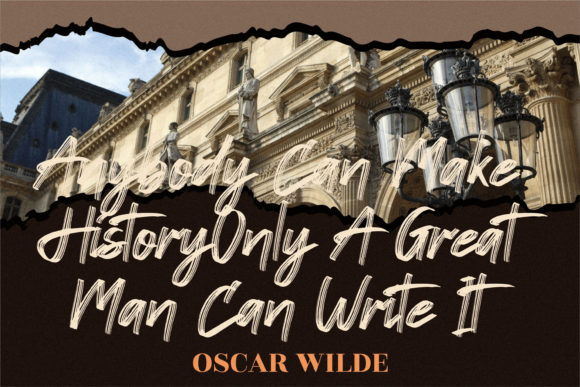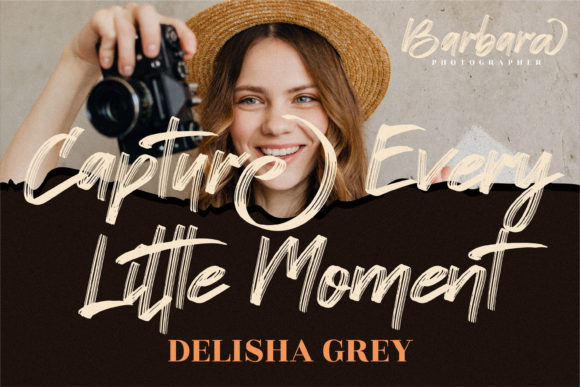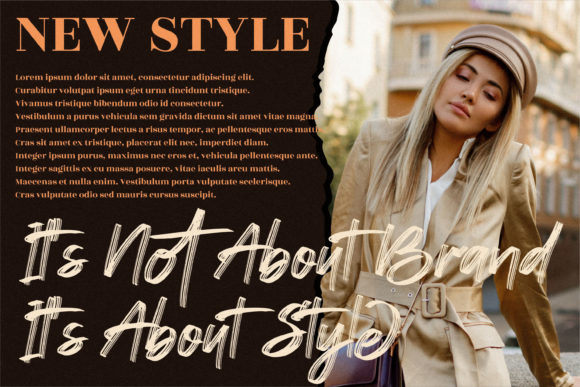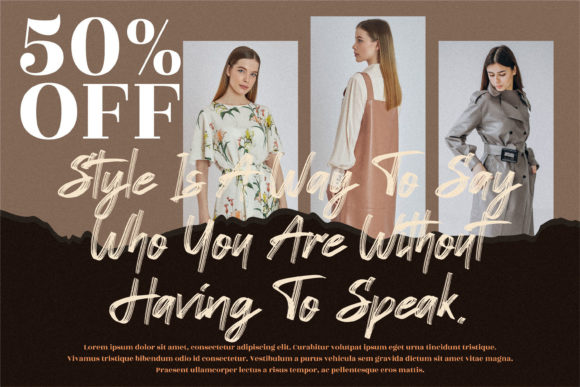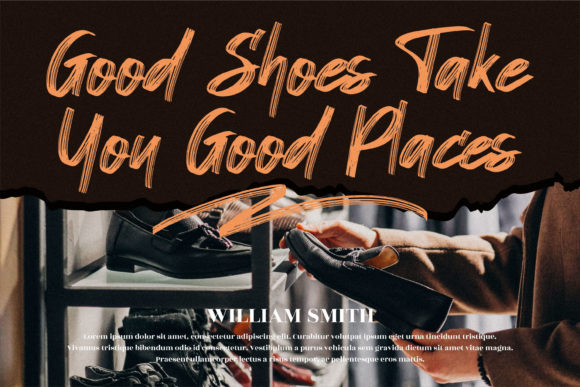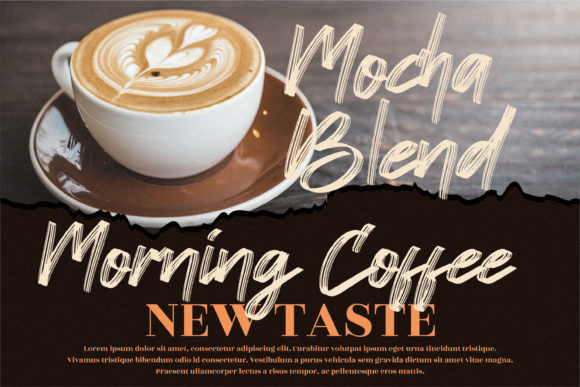
Introducing Cardrone Font: The Ultimate Cursive and Bold Brushed Script Font
Are you a designer or crafter looking for a font that can elevate your creations to the next level? Look no further than Cardrone Font, a stunning cursive and bold brushed script font that is sure to become a valuable asset in your font library. With its neat craftsmanship and high level of detail, Cardrone Font is the perfect choice for a wide range of design projects.
What is Cardrone Font?
Cardrone Font is a beautifully designed cursive and bold brushed script font that is perfect for adding a touch of elegance and sophistication to your designs. Its unique blend of cursive and bold characteristics makes it stand out from other fonts, and its high level of detail ensures that it will look great in any size or application.
Key Features of Cardrone Font
- Cursive and Bold Brushed Script Font: Cardrone Font features a beautiful cursive and bold brushed script style that is perfect for adding a touch of elegance and sophistication to your designs.
- Neatly Crafted and Highly Detailed: This font is meticulously crafted with a high level of detail, ensuring that it will look great in any size or application.
- Versatile: Cardrone Font can be used for a wide range of design projects, from logos and branding to invitations, posters, and more.
- Easy to Read: Despite its bold and cursive characteristics, Cardrone Font is easy to read, making it perfect for use in body text or headings.
Why Choose Cardrone Font?
There are many reasons why Cardrone Font is a great choice for designers and crafters. Here are just a few:
- Unique Style: Cardrone Font has a unique and distinctive style that will help your designs stand out from the crowd.
- High Quality: This font is meticulously crafted with a high level of detail, ensuring that it will look great in any size or application.
- Versatile: Cardrone Font can be used for a wide range of design projects, making it a valuable asset in your font library.
- Easily Customizable: Cardrone Font is easy to customize, allowing you to adjust the font to suit your design needs.
Tips and Tricks for Using Cardrone Font
Here are a few tips and tricks for getting the most out of Cardrone Font:
- Use it as a Headline Font: Cardrone Font is perfect for use as a headline font, adding a touch of elegance and sophistication to your designs.
- Pair it with Other Fonts: Cardrone Font pairs well with other fonts, such as sans-serif fonts, to create a unique and visually appealing design.
- Experiment with Colors: Cardrone Font looks great in a variety of colors, so don’t be afraid to experiment and find the perfect color for your design.
In conclusion, Cardrone Font is a stunning cursive and bold brushed script font that is sure to become a valuable asset in your font library. With its unique style, high level of detail, and versatility, Cardrone Font is perfect for a wide range of design projects. Whether you’re a designer or crafter, Cardrone Font is a great choice for adding a touch of elegance and sophistication to your creations.